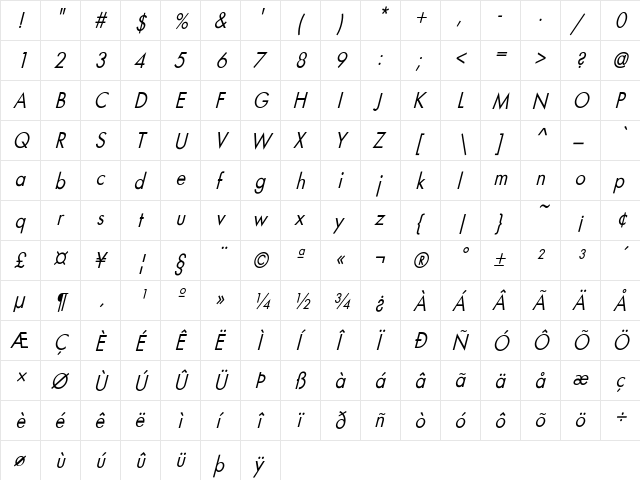
FuturaCndObl-Normal Regular
Design Context for FuturaCndObl-Normal Typeface
FuturaCndObl-Normal channels digital-age aesthetics through its sharp, structured letterforms — ideal for brands that want to signal innovation.
Pro Tip: Try FuturaCndObl-Normal with generous letter-spacing in UI labels and navigation — the geometric forms benefit from room to breathe.